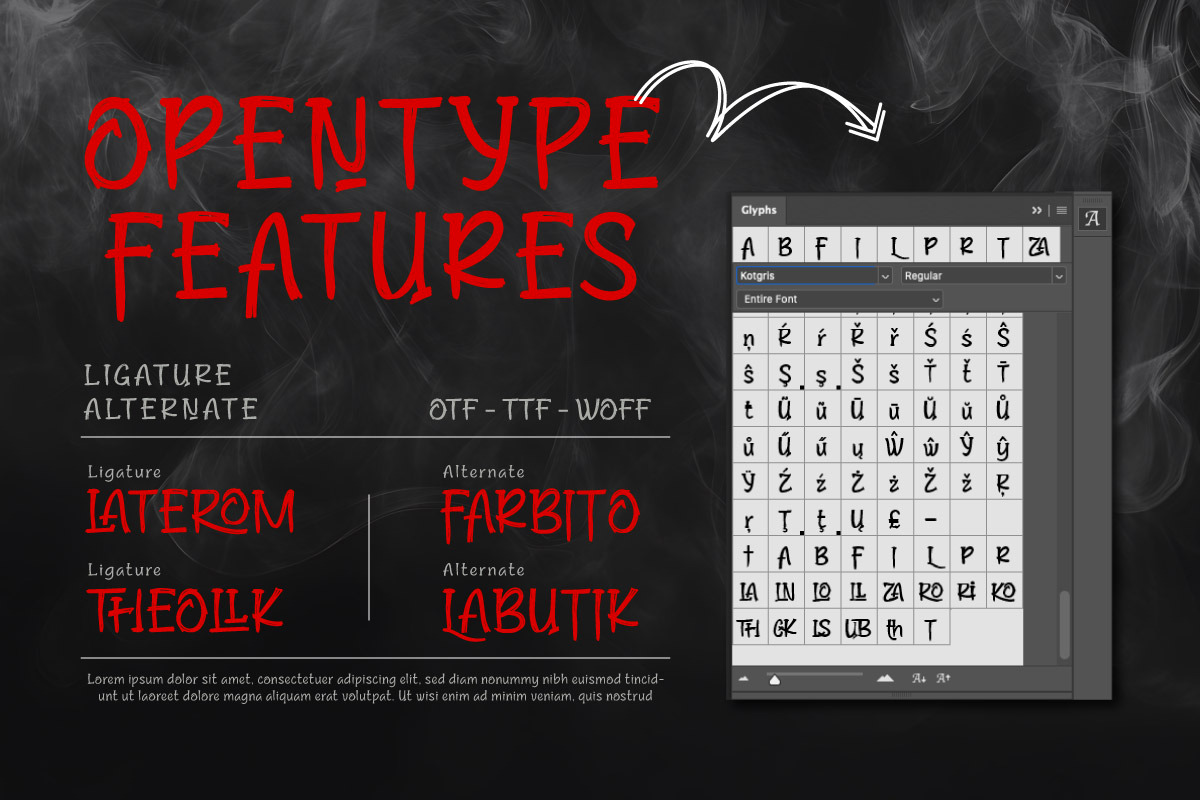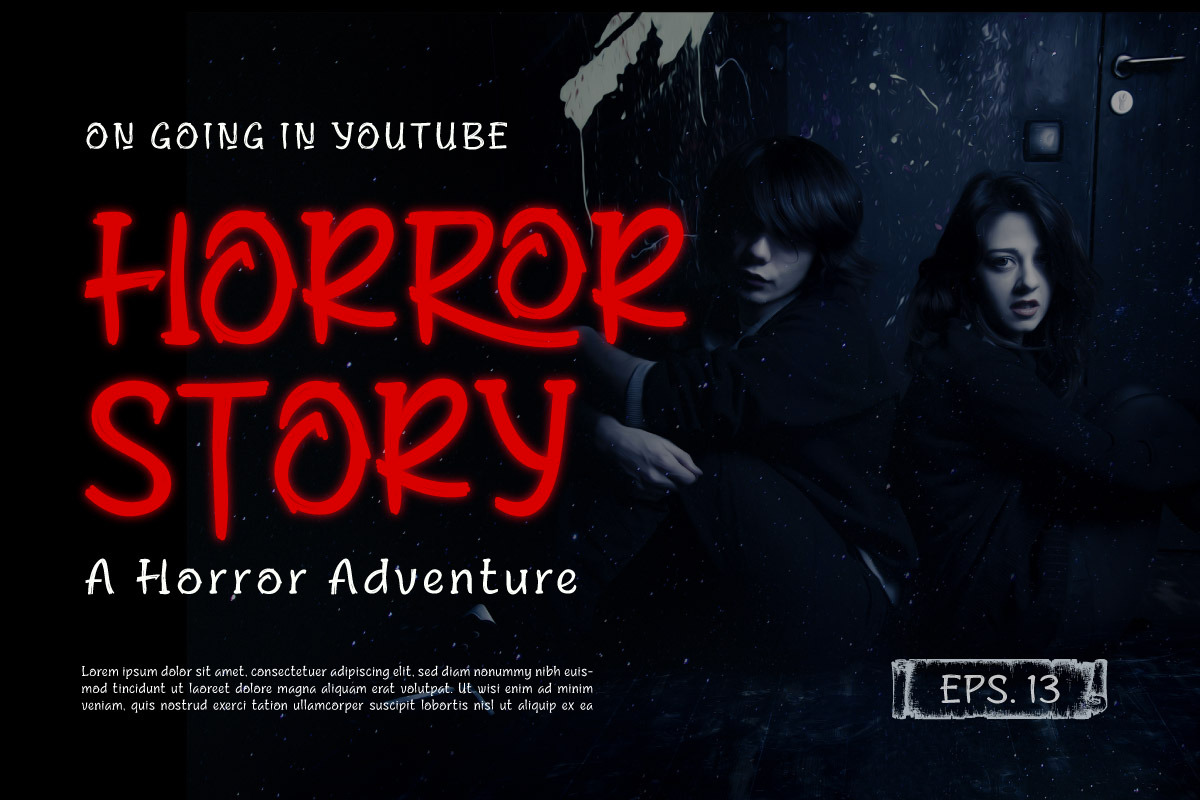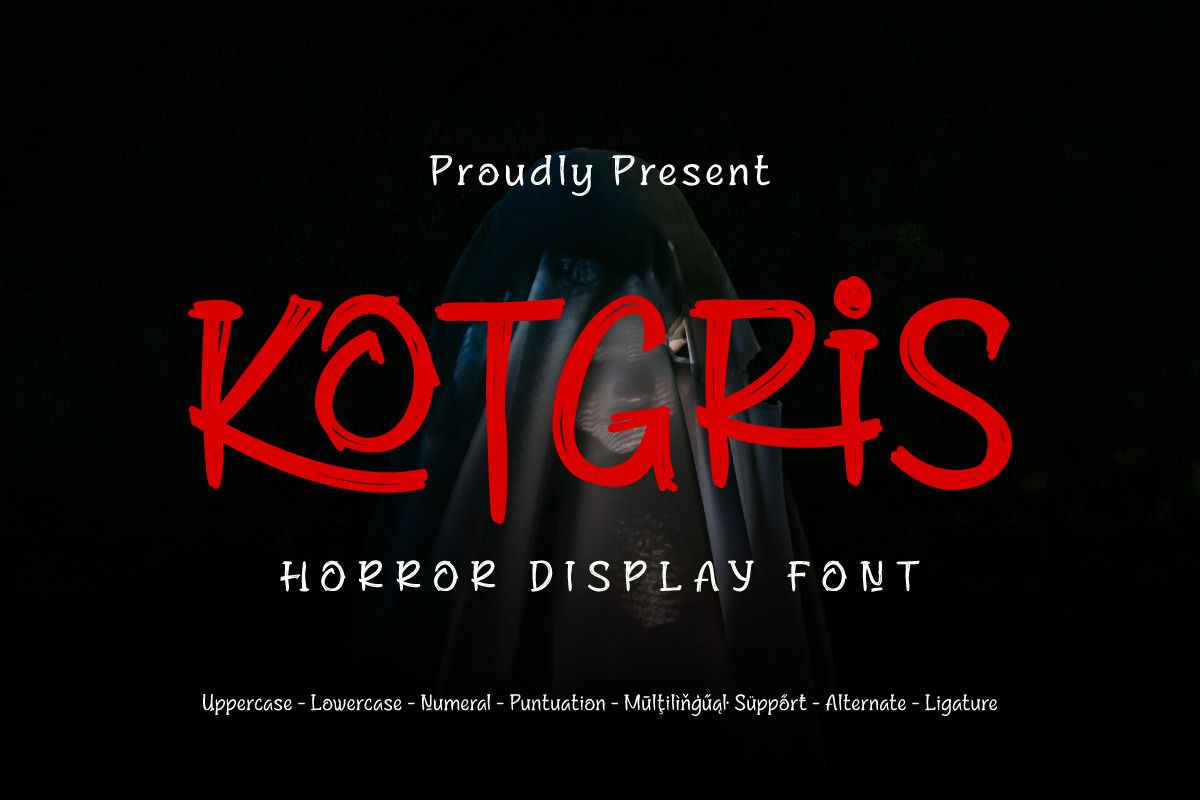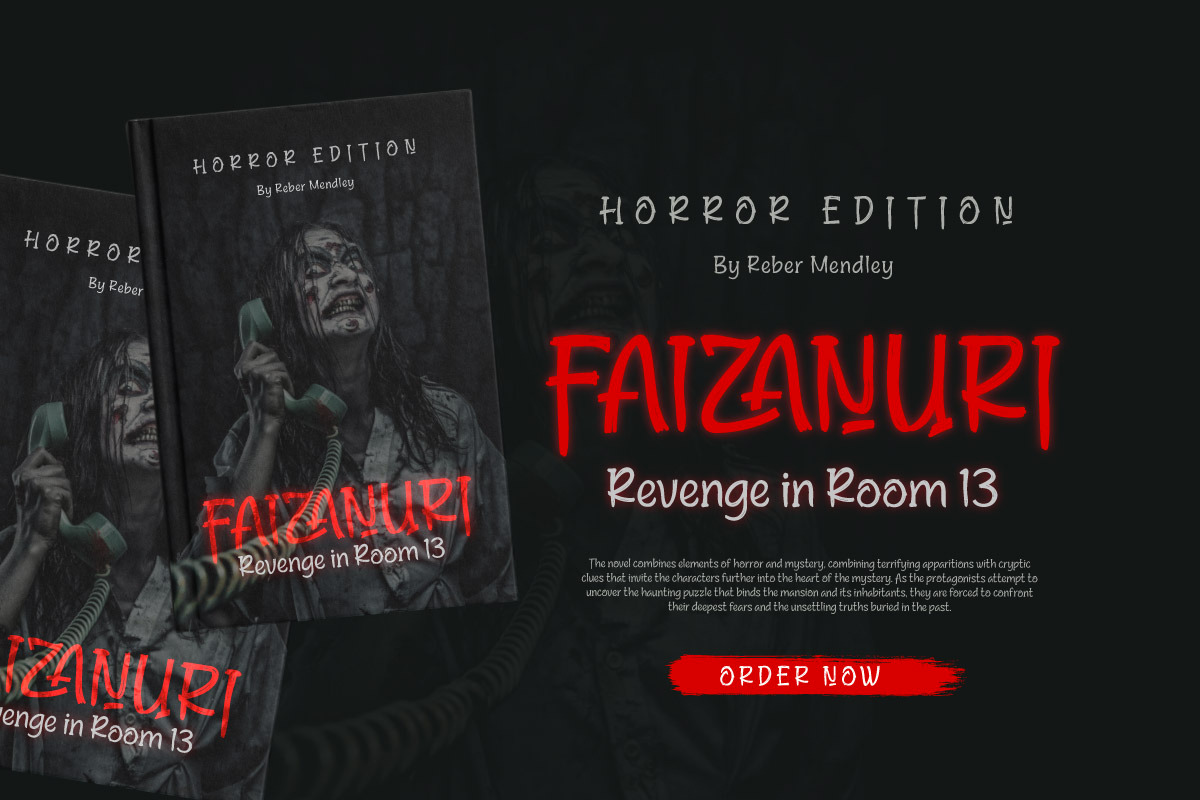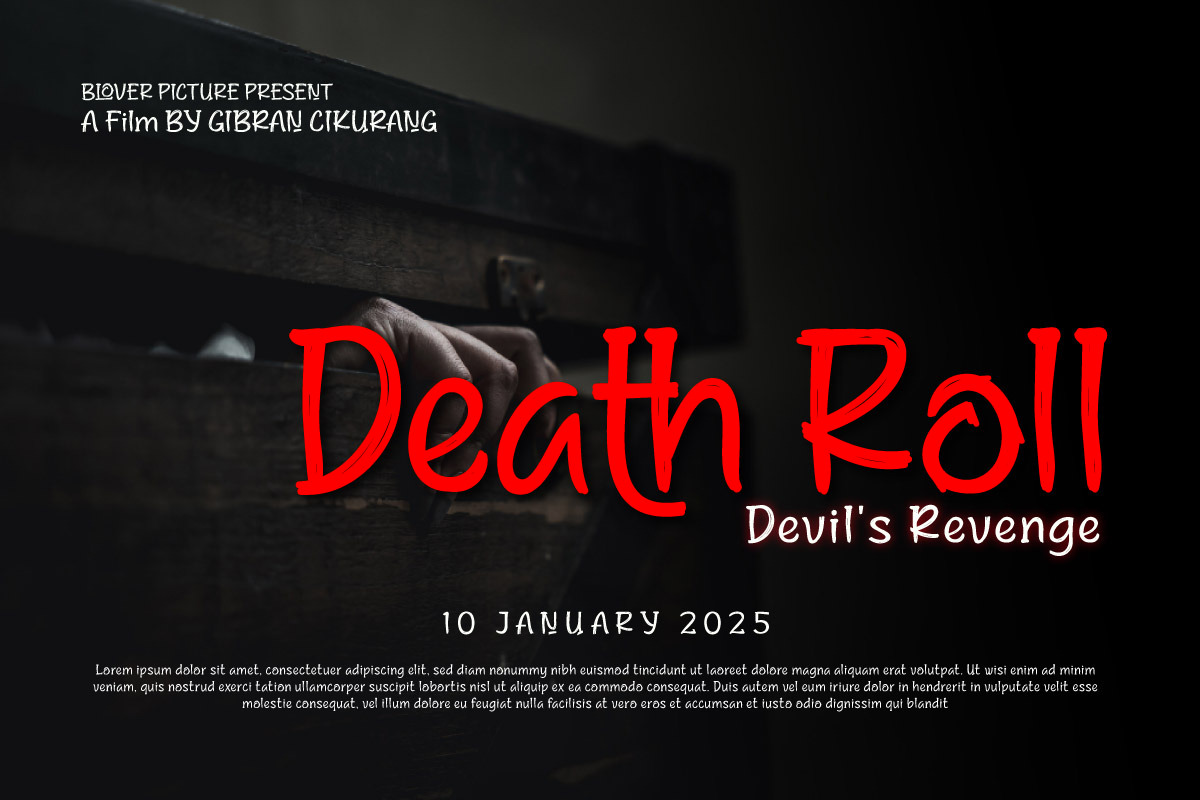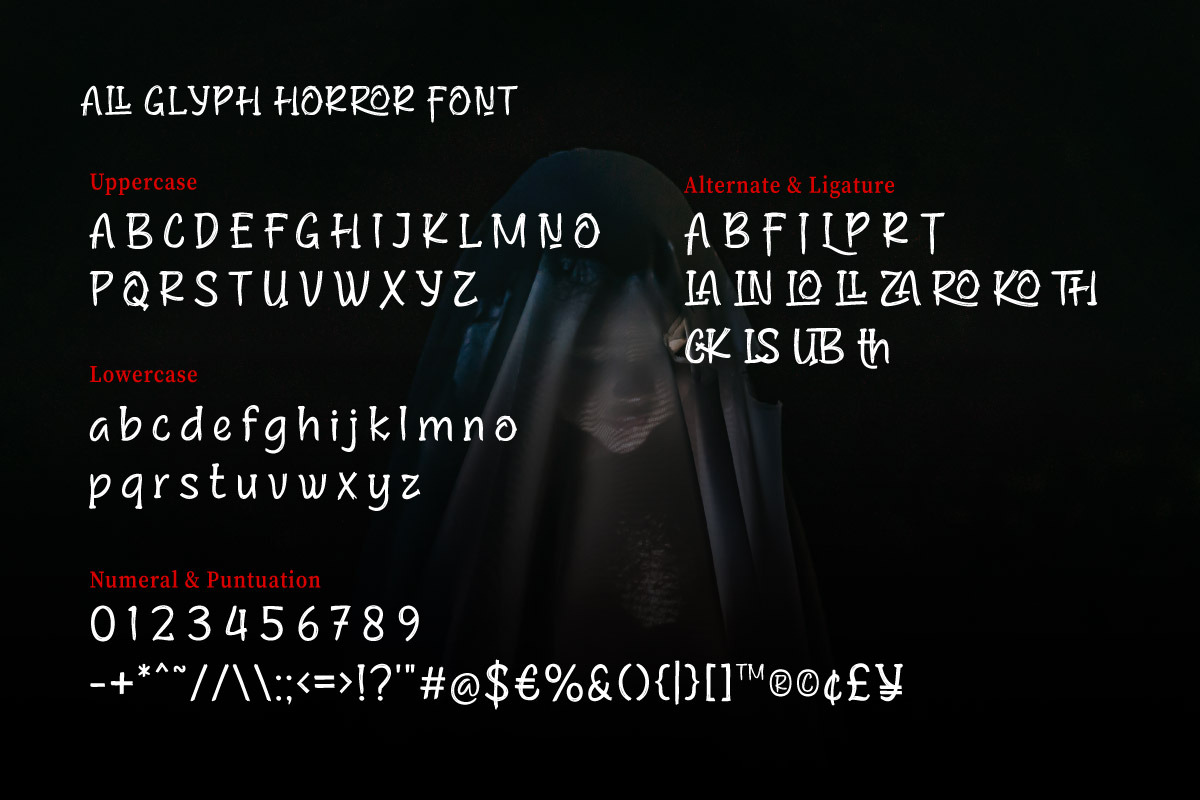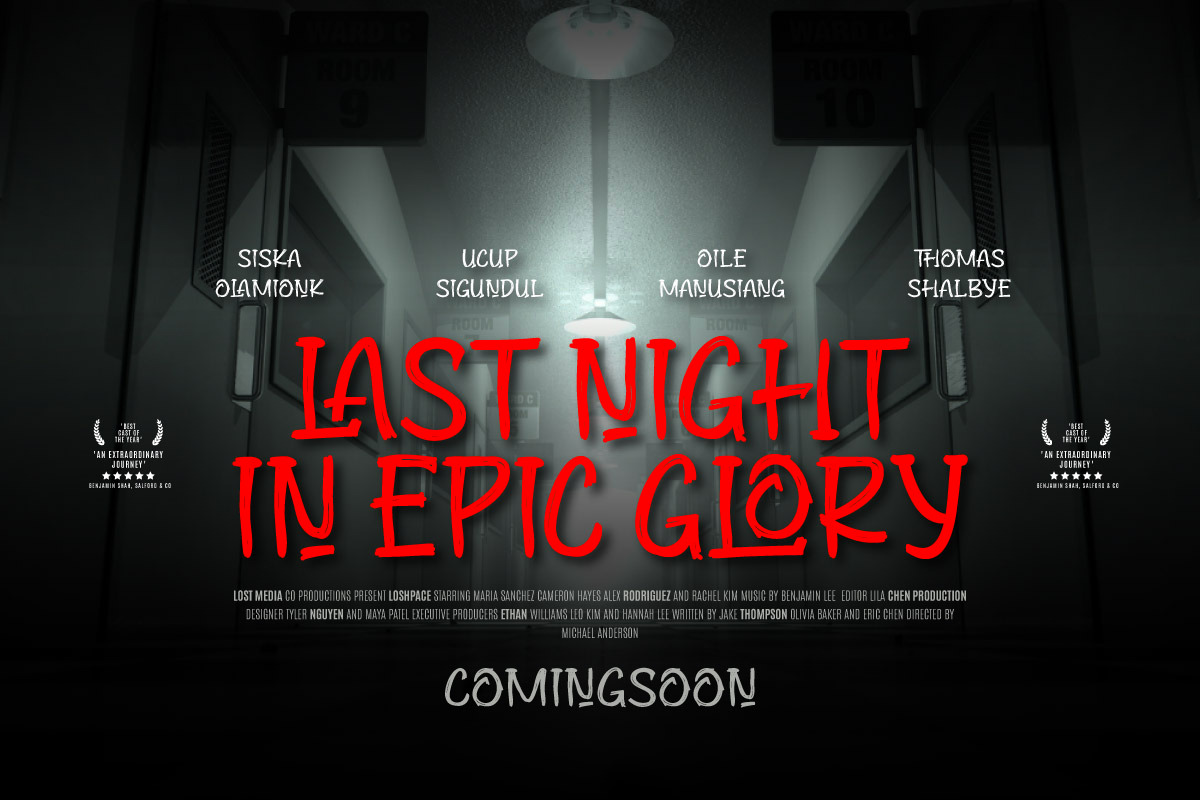
Kotgris - Horror Display Font
Kotgris is a spine-chilling horror display font that brings an air of mystery and dread to your designs. With jagged edges and unsettling strokes, this typeface captures the essence of haunted tales and eerie atmospheres. Perfect for Halloween projects, scary movie titles, posters, or eerie event invitations, Kotgris commands attention with its bold and ominous presence.
Designed to evoke feelings of suspense, the sharp and irregular characters deliver a haunting visual impact. Whether you're creating designs for spooky merchandise, thrilling book covers, or immersive gaming experiences, Kotgris adds the perfect touch of terror to your creative projects. Dare to use this font and bring your darkest visions to life with unmatched style and fear-inducing flair.